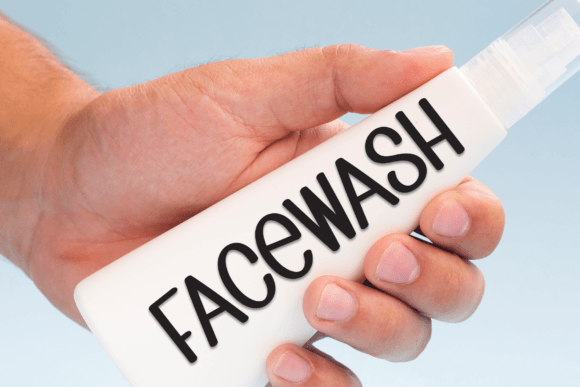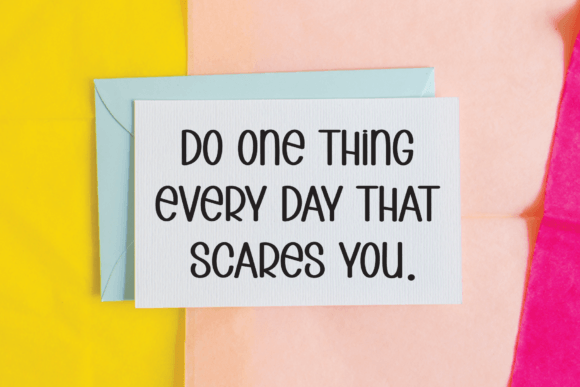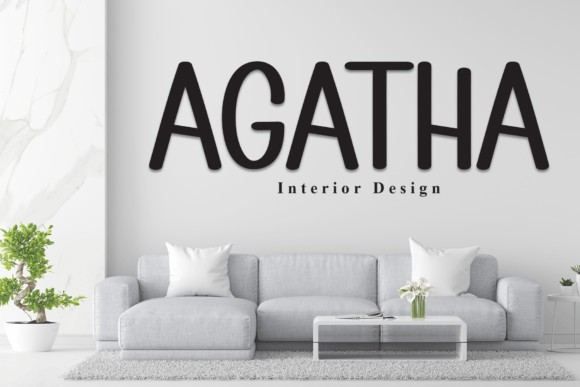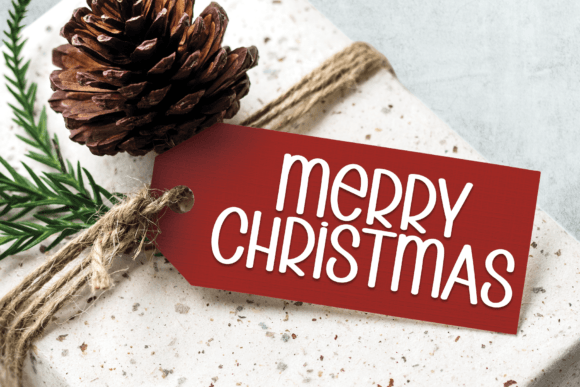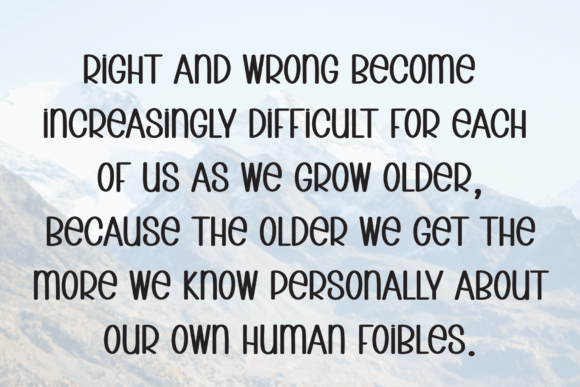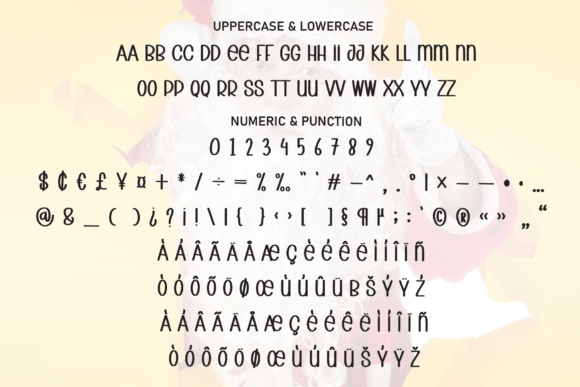
Introduction to Santa Creative Font
Have you ever been browsing through your phone’s camera roll, and suddenly you stumble upon a perfectly imperfect photo from a weekend getaway or a spontaneous family dinner? That’s the kind of warmth and authenticity that the Santa Creative Font embodies.
As designers, we’re always on the lookout for high-quality design resources that can add a personal touch to our creative projects. Whether it’s a social media post, a birthday invitation, or a blog post, the right font can make all the difference. That’s where the Santa Creative Font comes in – a free download that’s perfect for designers who want to add a relaxed and friendly vibe to their designs.
Key Features of Santa Creative Font
- High-quality vector graphics, ideal for creative projects and designs
- Includes a range of font styles and weights, providing versatility for various design applications
- Perfect for use in logos, branding materials, and other design elements, making it a valuable addition to your design resource library
Honest Review: Santa Creative Font
I recently stumbled upon the Santa Creative Font, and I’m excited to share my thoughts on this free download. As a designer, I’m always on the lookout for high-quality design resources that can elevate my creative projects.
The Santa Creative Font is a fantastic addition to any designer’s toolkit. Here are some of its standout features:
- ✨ High-quality glyphs and letterforms that are perfect for titles, headings, and body text.
- ✨ A transparent background that makes it easy to use in conjunction with other design elements.
- ✨ A versatile font that works well in both print and digital applications.
- ⚠️ The font is only available in a limited number of weights and styles, which may not be ideal for designers who require a more extensive font family.
- ⚠️ The font may not be suitable for use in very small text sizes, as the letters may become difficult to read.
Overall, I’m impressed with the Santa Creative Font. While it may have some limitations, its high-quality design and versatility make it a valuable addition to any designer’s arsenal. I would definitely recommend it as a free download for any creative project.
Tips for Getting the Most Out of Santa Creative Font
Use the Santa Creative Font to add a touch of whimsy to your designs.
Combine it with other design resources for a high-quality, creative project.
The Santa Creative Font is perfect for:
Designing holiday cards and invitations.
Creating festive social media graphics.
Adding a touch of fun to presentations and reports.